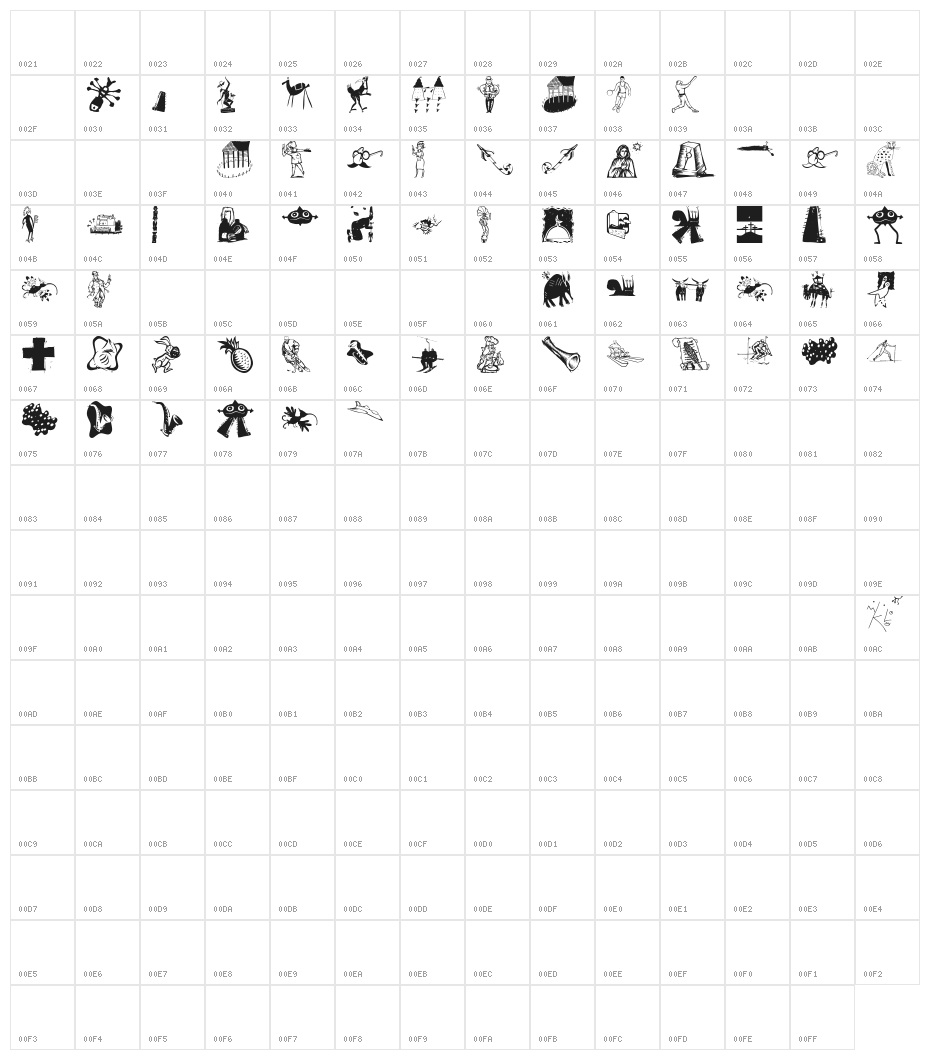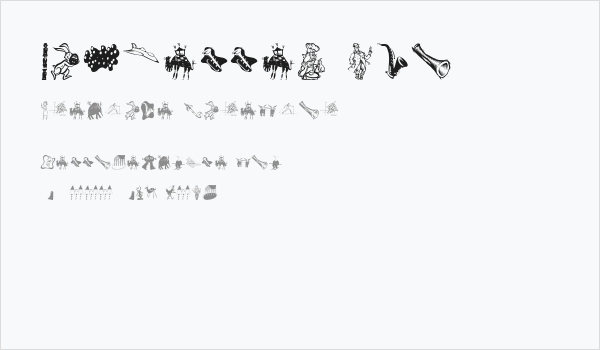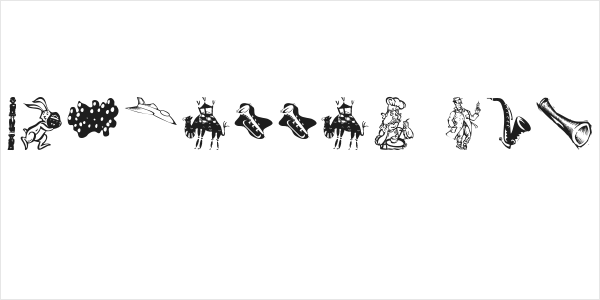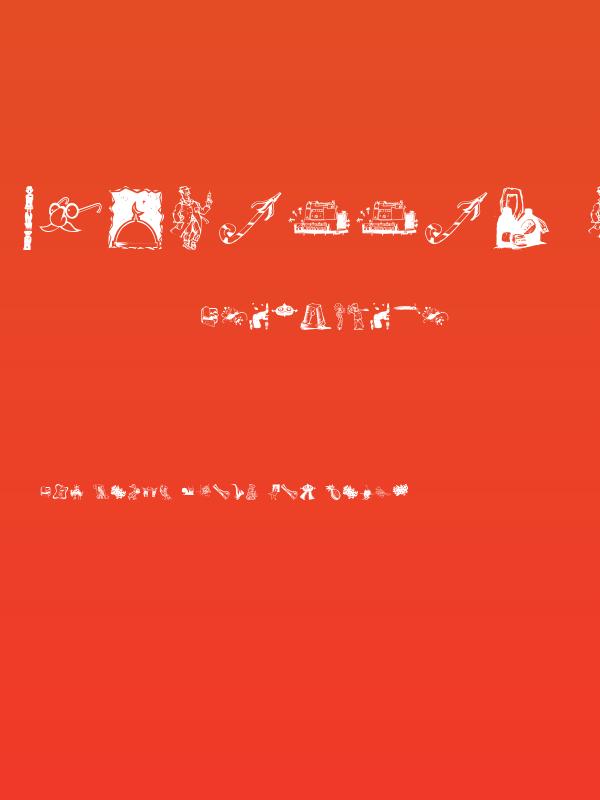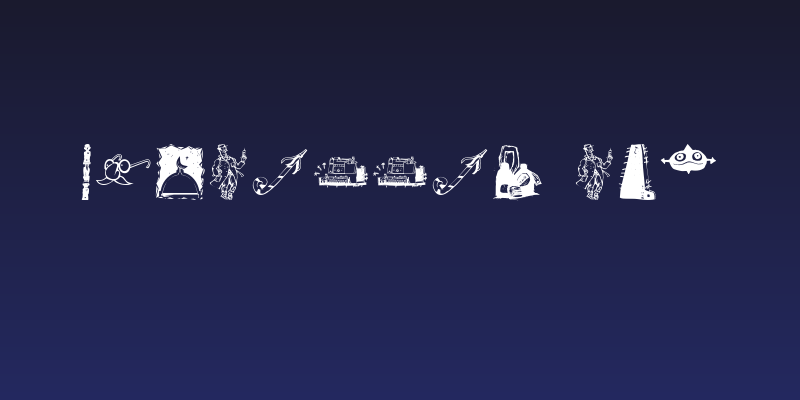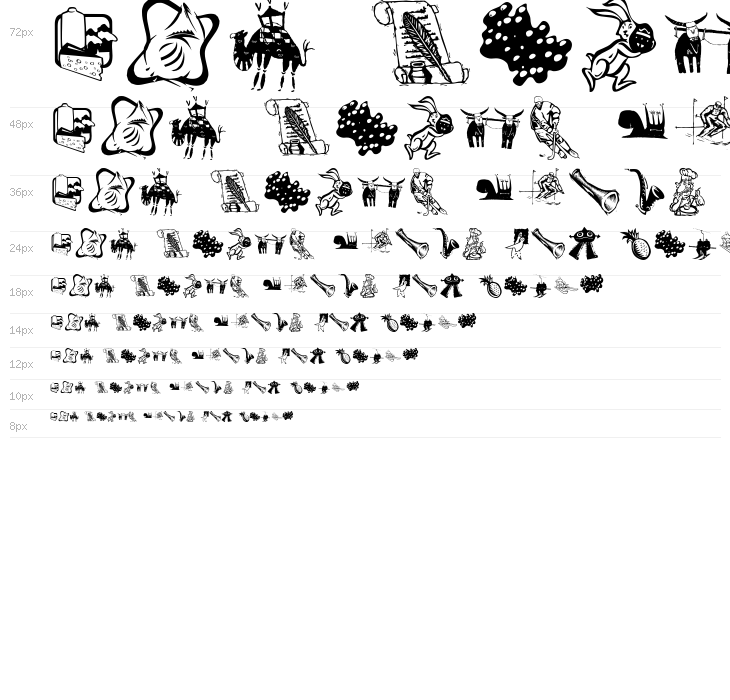
Miszellen-Zwo Font
Miszellen-Zwo Description
A highly decorative and whimsical dingbat font composed of unique hand-drawn illustrations, each glyph representing a different playful or surreal scene, character, or object. The style is sketch-like with varying line thickness and a cartoonish, imaginative feel.
| Overall Style | Decorative, Whimsical, Playful |
| Use Case | Illustrative elements, icons, creative design accents |
| Proposed Projects | ChildrenΓ’β¬β’s books, creative posters, party invitations, educational materials, playful branding, scrapbooking. |